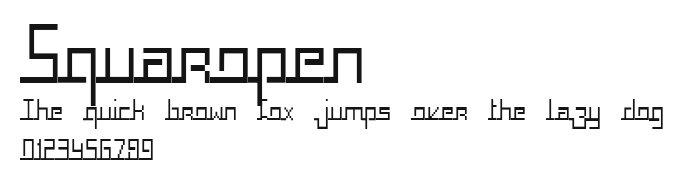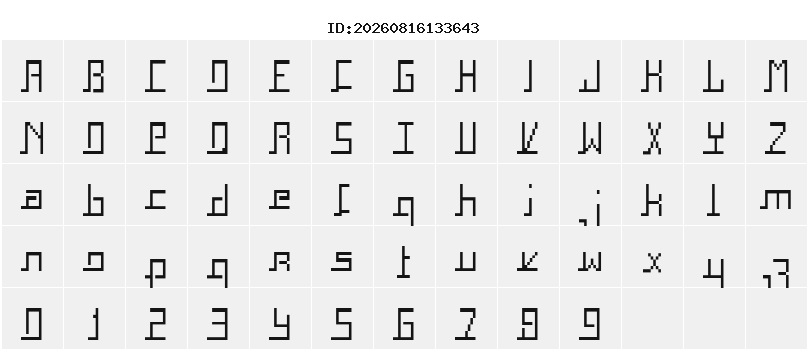
Squaropen Preview
• Font Name: Squaropen
• Font Style: Condensed
• Full Font Name: Squaropen Condensed
• Character Count: 217
About Squaropen.ttf
Squaropen.ttf is a modern, elegant sans-serif font designed for ultimate readability and visual harmony. Perfect for branding, headlines, web design, and print materials.